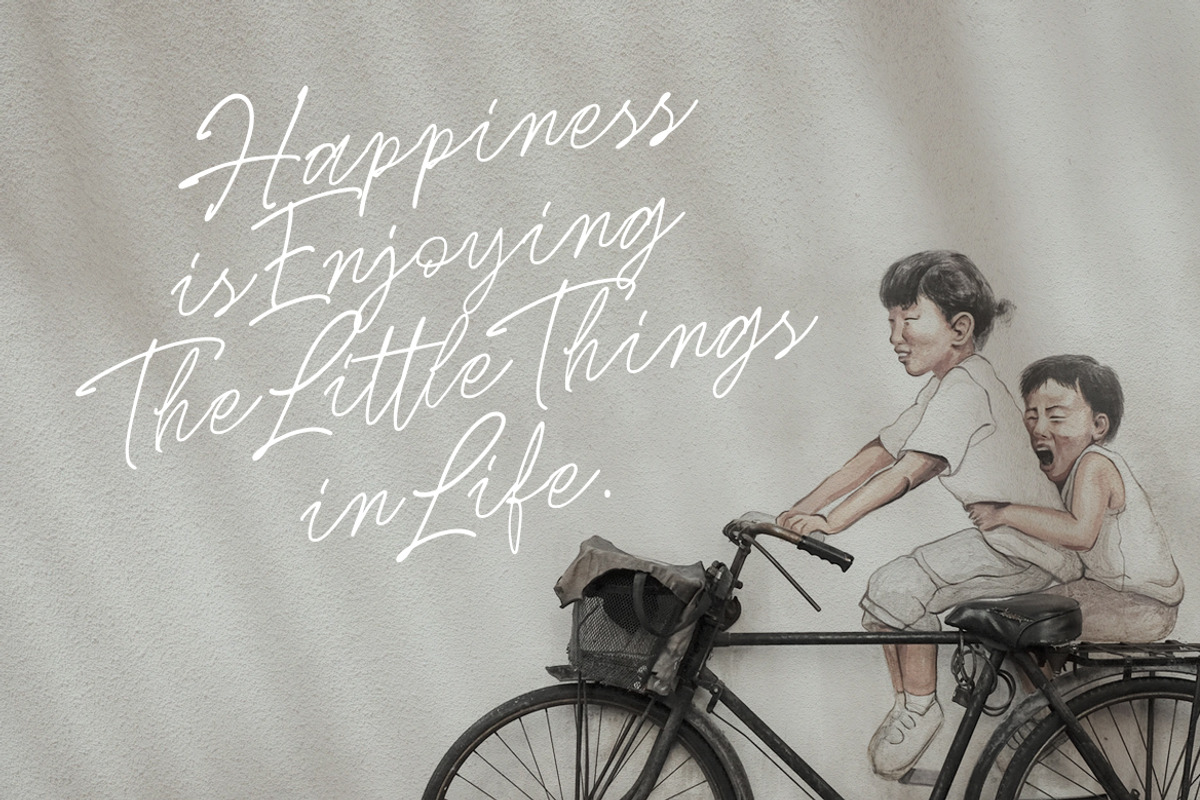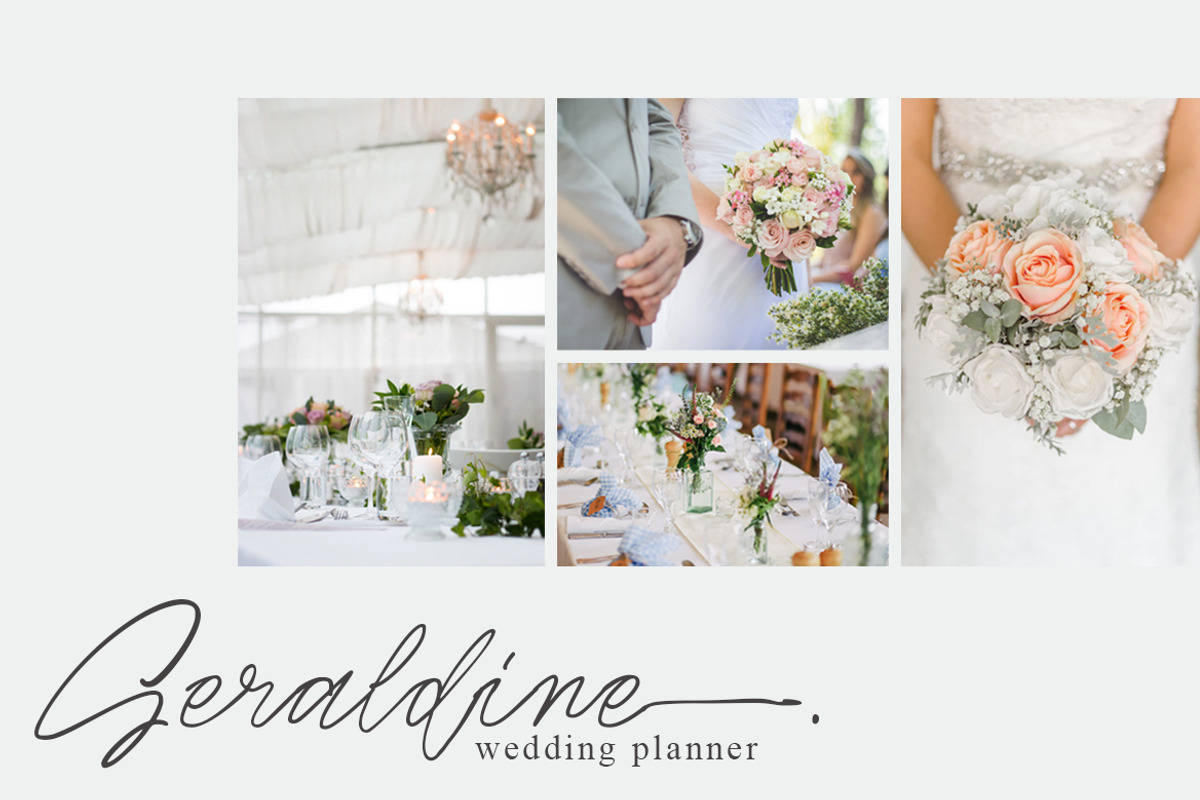
Masterline - Signature Script
Introducing Masterline Signature Script. This is a stylish modern calligraphy font with casual handwriting. It is perfect for branding, signature logo, wedding invitation, photography, and you can use and enjoy Masterline, for promotional material and anything.
Masterline includes full set of gorgeous uppercase and lowercase letters, numerals, a large range of punctuation and ligatures. All lowercase letters include ending swashes, giving realistic hand-lettered style.